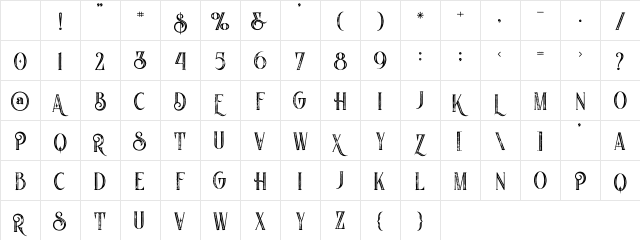
Complete Nomos inline grunge Regular glyph index. Displaying only characters natively supported by Nomos inline grunge Regular font.
Nomos inline grunge embraces imperfection - its rough, textured character adds raw authenticity to designs that want to feel lived-in and unconventional.
Pro Tip: Use Nomos inline grunge at larger sizes where the texture and irregularity of each letterform can be clearly seen - it loses its character at small sizes.